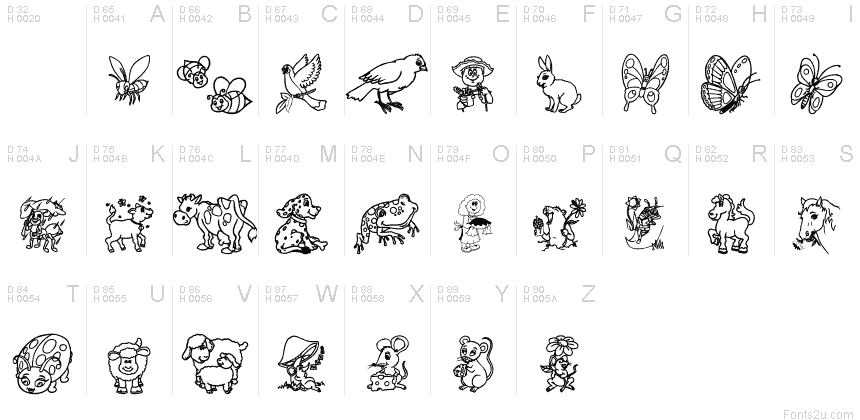
Critters1DC SemiBold
Critters1DC SemiBold font by Ozmee is a free animals-and-nature dingbat typeface. Each glyph is a bold, inky line drawing-like the lively bird in flight-with clean contours and just enough detail to stay legible at small sizes while still feeling hand-drawn and friendly. The icons have a unified stroke weight, so they sit together naturally in borders, patterns, or spot illustrations.
Using Critters1DC SemiBold, you can quickly drop ready-made critters into kids’ activity sheets, classroom posters, nature-club flyers, eco-themed logos, scrapbooking pages, or coloring pages. This free font shines when set large, almost like miniature stamps, and pairs smoothly with a simple sans serif for supporting text.